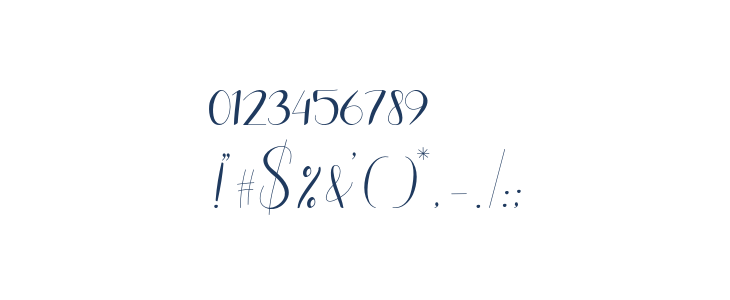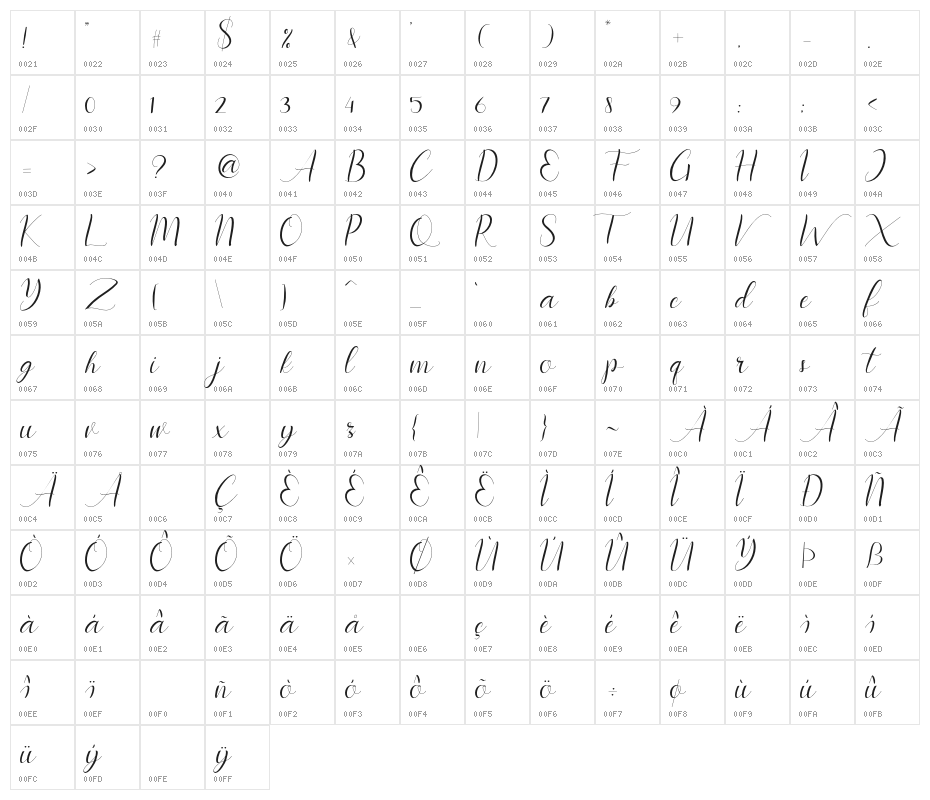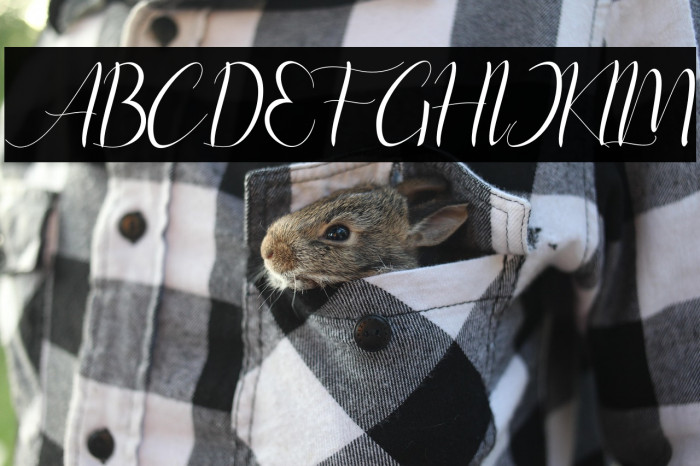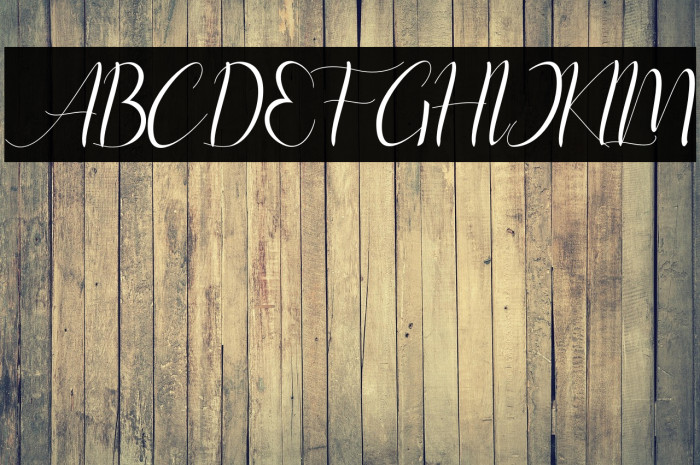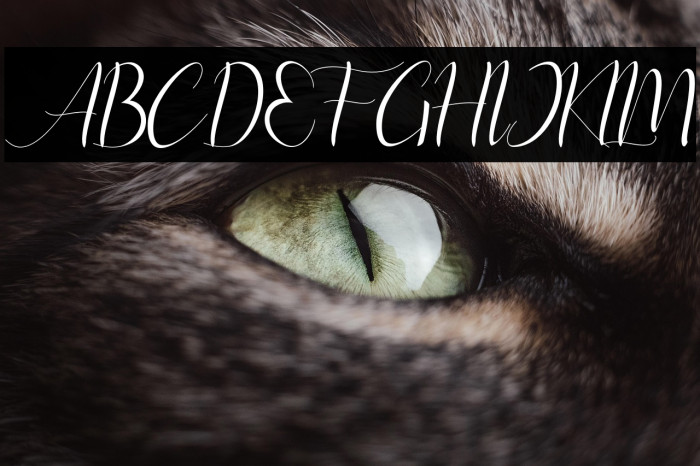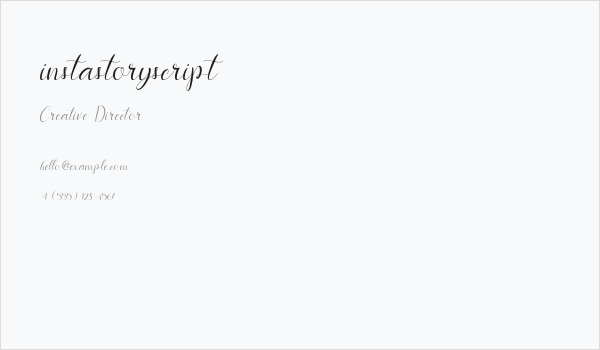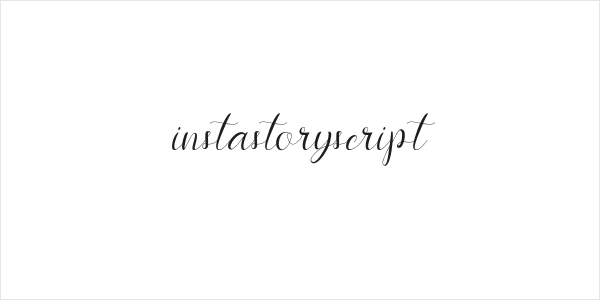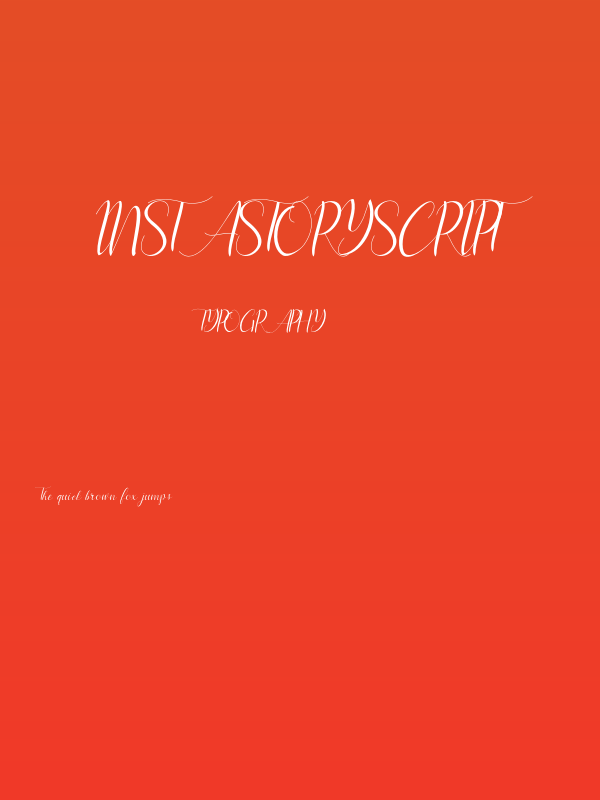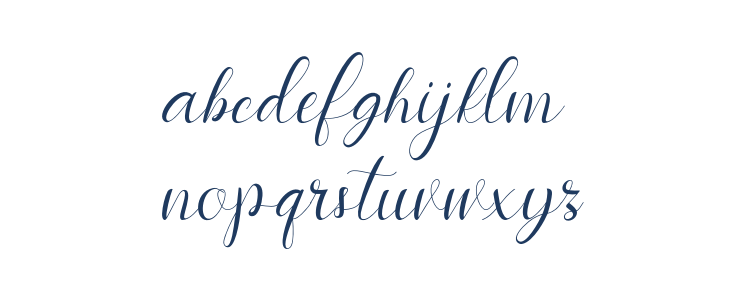
instastoryscript Font
instastoryscript Description
This elegant script font features a flowing, cursive style with high contrast between thick and thin strokes. The uppercase letters are tall and graceful, with sweeping curves and loops that give a sense of movement and sophistication. The lowercase letters maintain a consistent flow, with delicate connections between each character. Numbers and special characters follow the same fluid style, enhancing the font's cohesive appearance. This font is ideal for projects that require a touch of elegance and formality, such as wedding invitations, branding, or luxury product packaging. Its decorative nature makes it stand out, while the clear legibility ensures it remains functional.
| Overall Style | Elegant, Decorative |
| Proposed Projects | Wedding invitations, luxury branding, elegant packaging, formal event materials. |